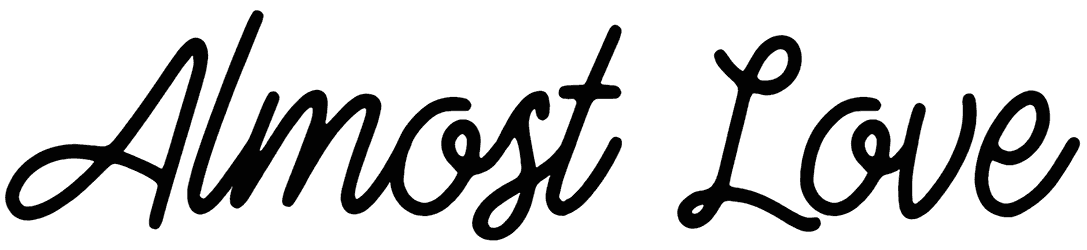
Almost Love Font
This handwritten love font, Almost Love, looks great on flyers, letters, and anything else you can think of that needs a modern and casual look.